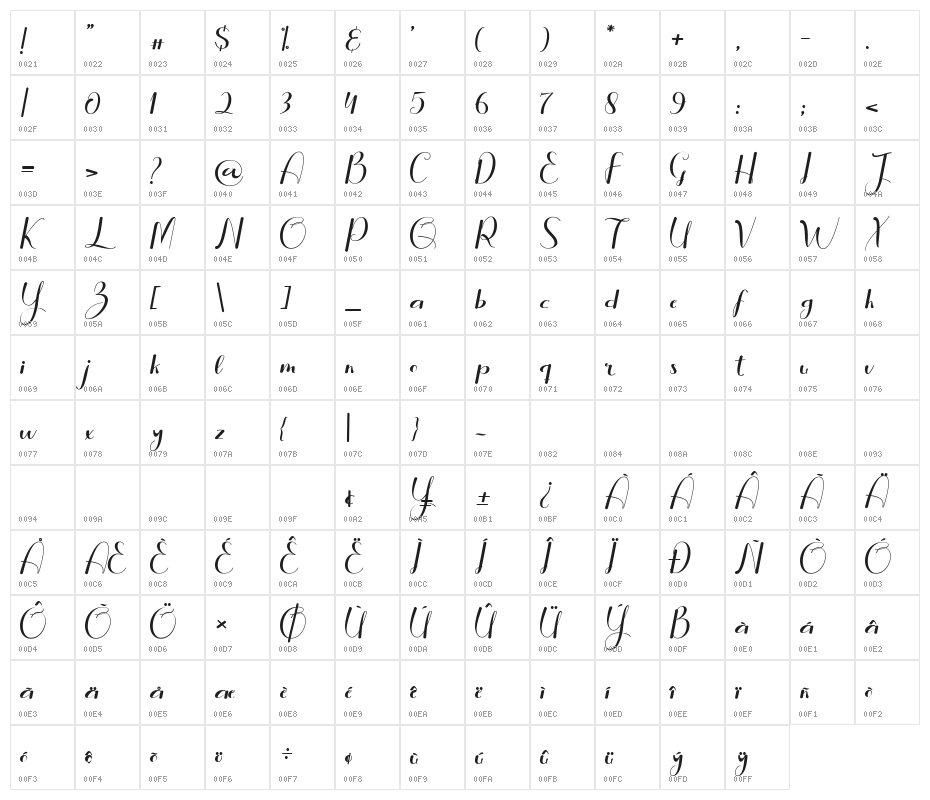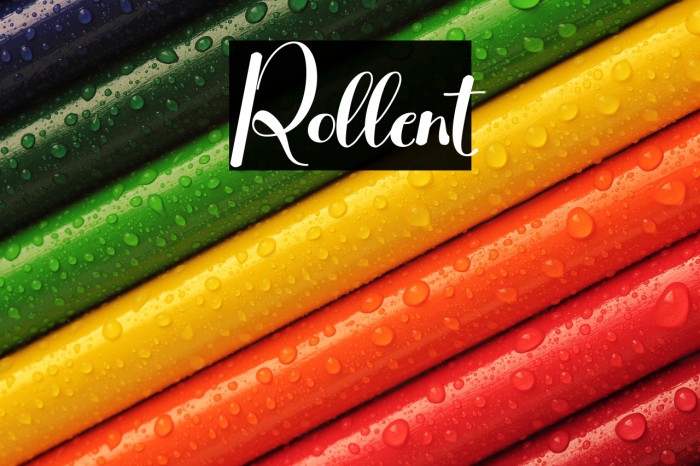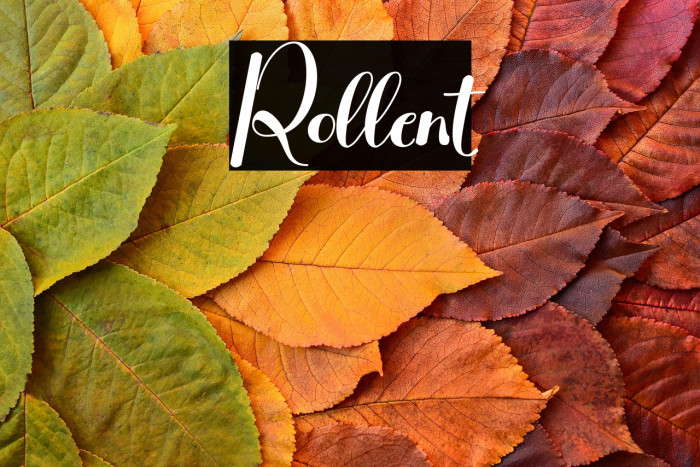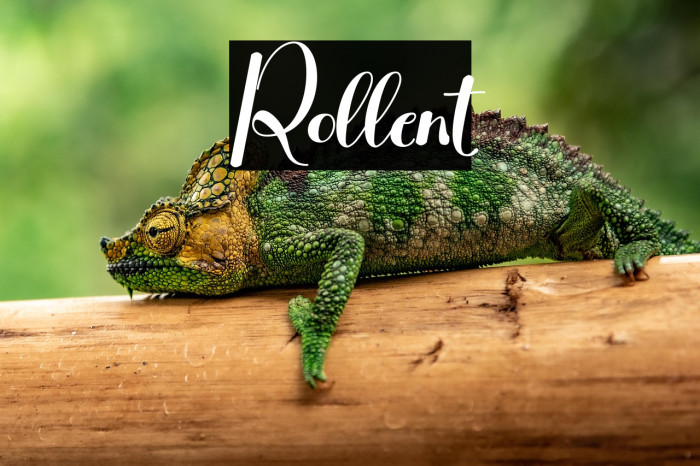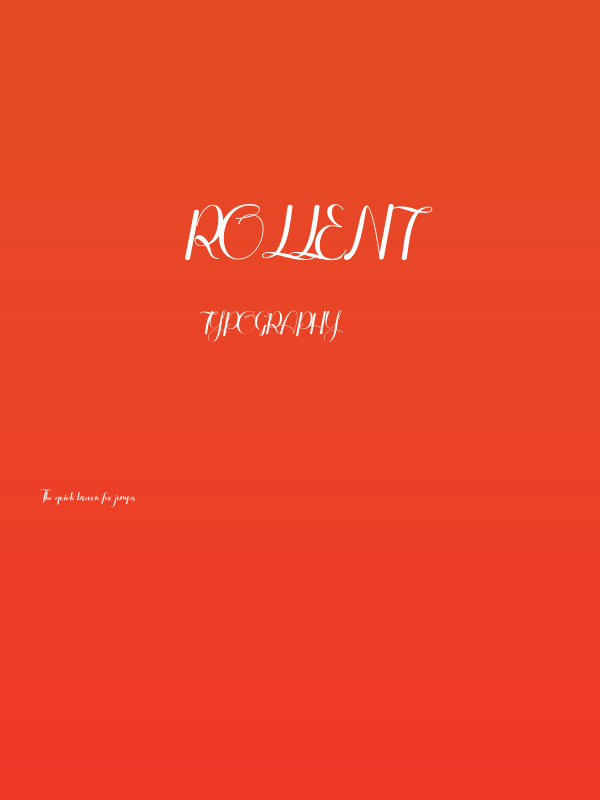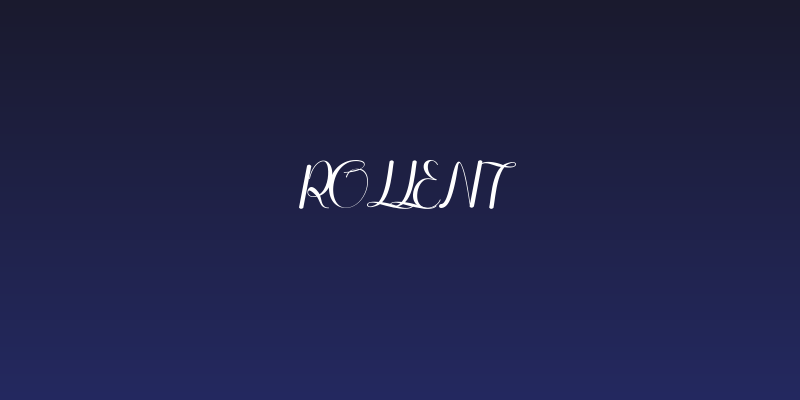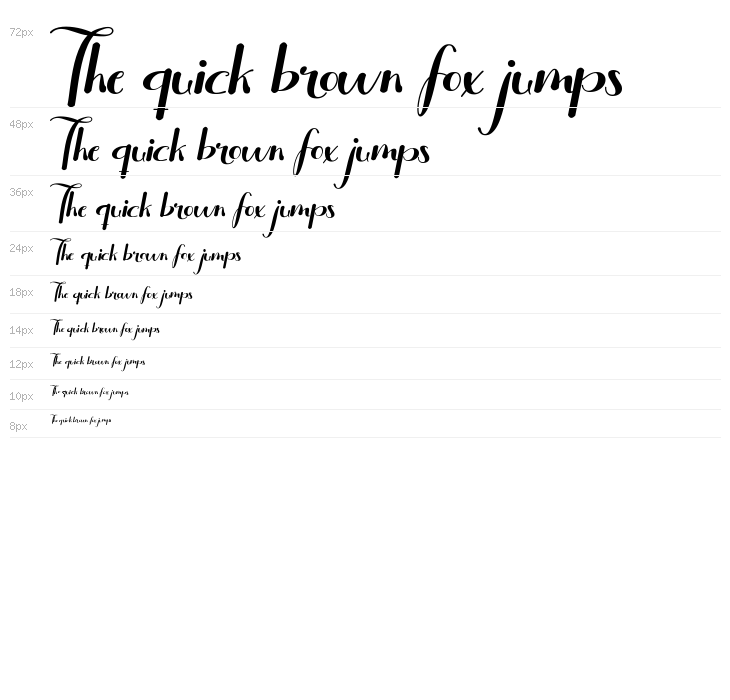
Rollent Font
Rollent Description
This elegant script font features a flowing, cursive style with high contrast between thick and thin strokes. The uppercase letters are particularly ornate, with sweeping curves and flourishes that give a sense of movement and grace. The lowercase letters maintain a consistent style, with smooth connections and a slightly more restrained design. Numbers and special characters are equally stylized, ensuring a cohesive look across all elements. This font exudes sophistication and is perfect for projects that require a touch of elegance and flair.
| Overall Style | Elegant |
| Use Case | Headlines, Logos, Invitations |
| Proposed Projects | Ideal for wedding invitations, luxury branding, elegant packaging, and decorative headlines. |